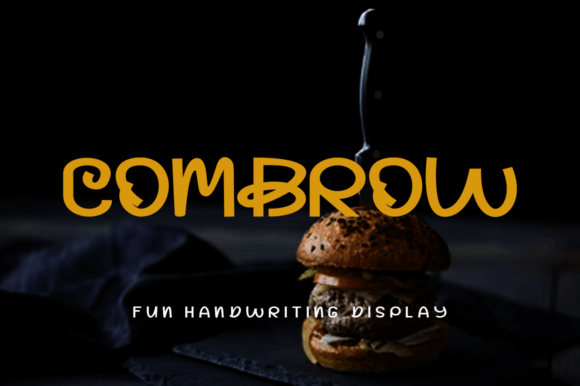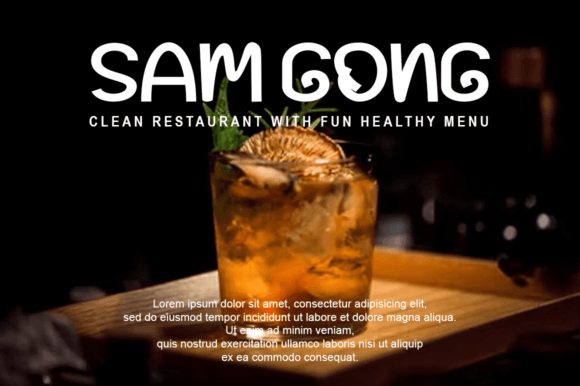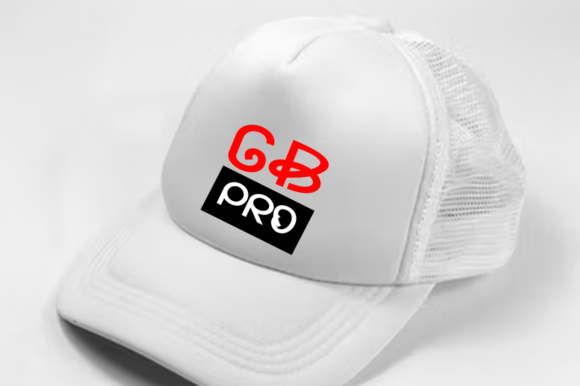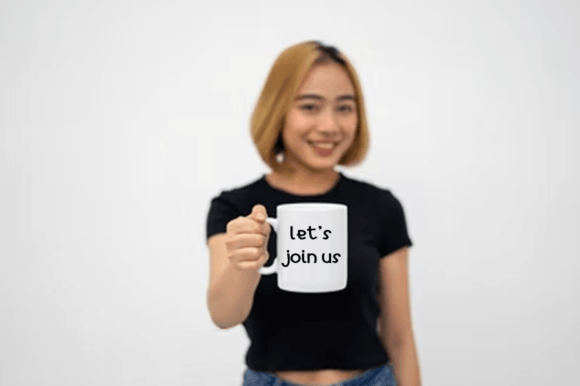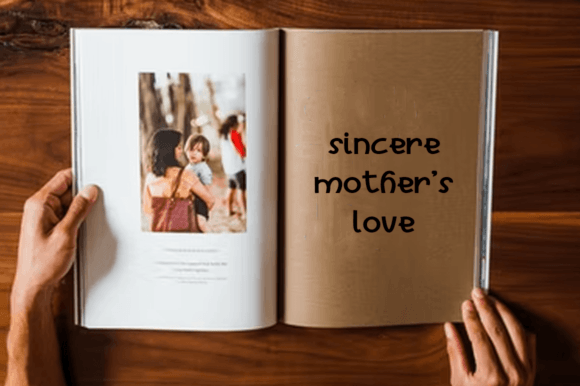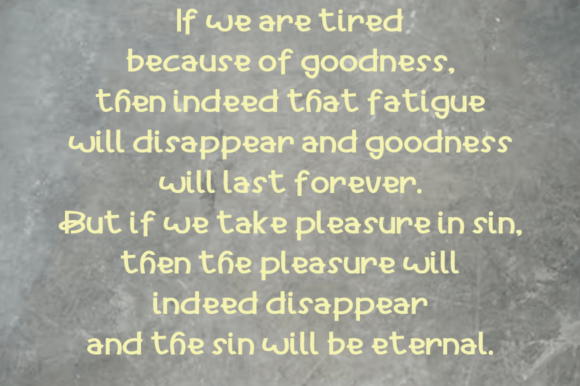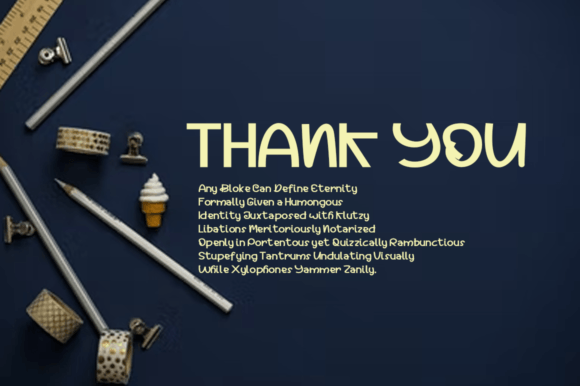
Combrow Font
About Combrow Font
“Combrow” is a charming and cute handwriting font designed to bring a touch of casual modern calligraphy to your designs. Its playful and informal style adds a delightful character to various creative projects, making it a perfect choice for those seeking a sweet and approachable typographic solution.
This font’s casual modern calligraphy makes it suitable for a wide range of applications. Whether you’re working on greeting cards, social media posts, invitations, logos, branding materials, posters, or any design that could benefit from a cute and handwritten touch, “Combrow” offers a unique and endearing aesthetic.
Its informal charm lends a sense of authenticity and genuineness to your designs, making them feel more personal and relatable. “Combrow” is particularly well-suited for projects that aim to evoke a warm and friendly atmosphere, creating a connection with the audience.
Embrace the cuteness and playfulness of “Combrow” in your creative endeavors. Let its casual modern calligraphy infuse your designs with a sense of joy and approachability, making them more engaging and appealing to viewers. Whether you’re designing for personal or professional purposes, “Combrow” adds a touch of whimsy and sweetness that enhances the overall charm of your projects.